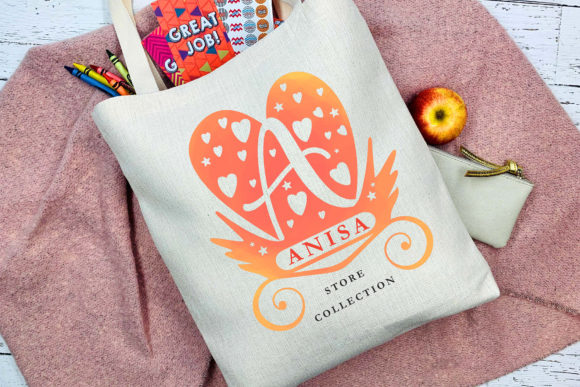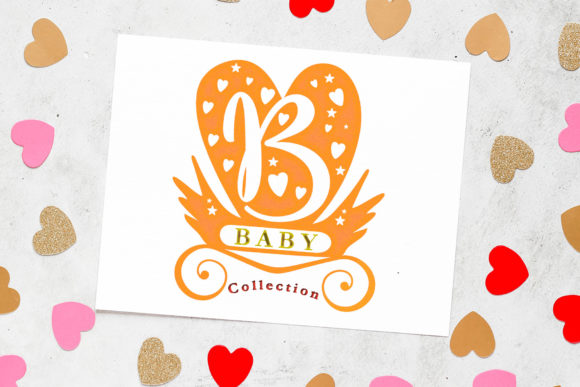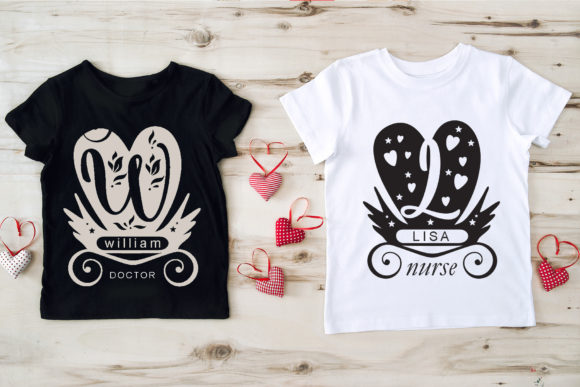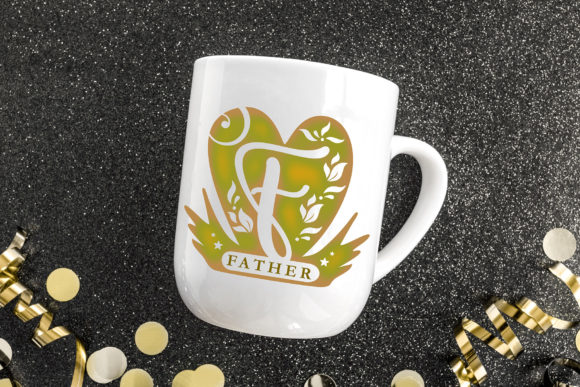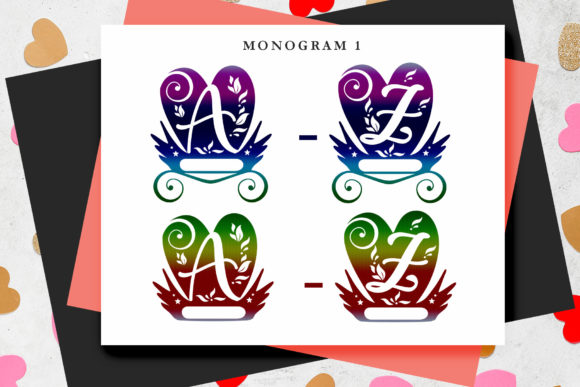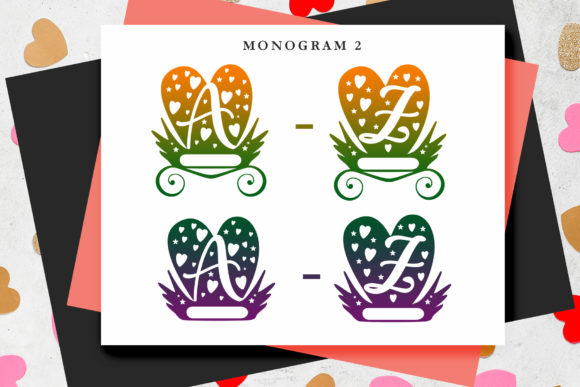
Introduction to Rihana Monogram Font
Have you ever found yourself in a creative rut, staring at a blank canvas with no inspiration in sight? That’s exactly where I was when I stumbled upon the enchanting Rihana Monogram Font. It was love at first sight – the intricate details, the delicate curves, and the romantic charm all combined to transport me to a world of whimsy and wonder.
As a designer, I know how crucial it is to have the right tools at your disposal to bring your vision to life. That’s why I’m excited to share with you the wonders of the Rihana Monogram Font, a high-quality design resource that’s perfect for adding a touch of elegance to any creative project. With its transparent background and beautiful lettering, this font is sure to elevate your designs to new heights.
Key Features of Rihana Monogram Font
- Unique Monogram Design: The Rihana Monogram Font is designed with a distinctive, modern monogram style that makes it perfect for creative projects requiring a touch of elegance.
- Perfect for Design Projects: The Rihana Monogram Font is an ideal choice for designers seeking a high-quality, unique design element to elevate their creative project.
Honest Review: Rihana Monogram Font
I recently stumbled upon the Rihana Monogram Font while searching for a unique design resource to elevate my creative project. The moment I downloaded the font, I was excited to see how it would look on a transparent background. I’m happy to report that the font performed exceptionally well, with clean lines and a high-quality finish.
- Unique and elegant design that adds a touch of sophistication to any project ✨
- High-resolution font that looks great on both print and digital mediums
- Limitations:
- The font is not as versatile as some other monogram fonts, which may limit its use in certain creative projects ⚠️
- Some users may find the font too ornate or over-the-top for their taste
Overall, I’m impressed with the Rihana Monogram Font. While it may not be the best fit for every design project, it’s a high-quality resource that’s perfect for those looking to add a touch of elegance and sophistication to their work.
The Rihana Monogram Font is a high-quality design resource perfect for your next creative project. With its elegant and sophisticated design, it’s a great addition to any project.
Use a transparent background to give your design a clean and modern look.
Experiment with different font sizes and colors to create a visually appealing design.
The Rihana Monogram Font is perfect for:
Corporate branding and marketing materials
Personalized gifts and decorations
Yes, the Rihana Monogram Font is a high-quality design resource, carefully crafted to provide a unique and elegant touch to your creative project. With its clean and modern design, this font is perfect for a variety of design applications, from branding and logos to digital products and marketing materials.